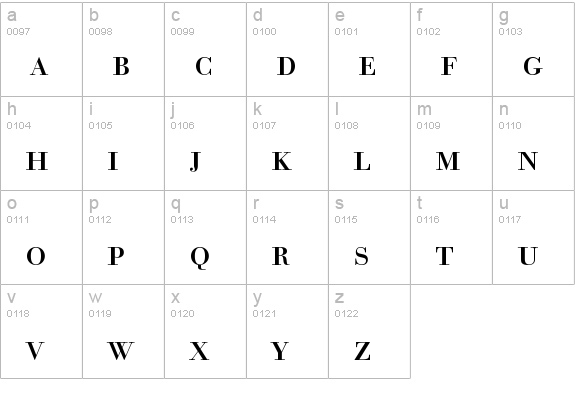
Bodoni Recut OldStyle SSi Small Caps Font Details
Bodoni Recut OldStyle SSi Small Caps font is a timeless and elegant typeface that exudes sophistication and class. With its classic serifs and delicate curves, this font is perfect for adding a touch of refinement to any design project. The small caps version offers a unique and stylish look that is sure to make your text stand out. What's even better is that this stunning font is available for free download at FontsMarket.com. Whether you're working on a branding project, editorial design, or any other creative endeavor, Bodoni Recut OldStyle SSi Small Caps font is a versatile and eye-catching choice that will elevate your work to the next level. Get your hands on this exquisite font today and take your designs to new heights!